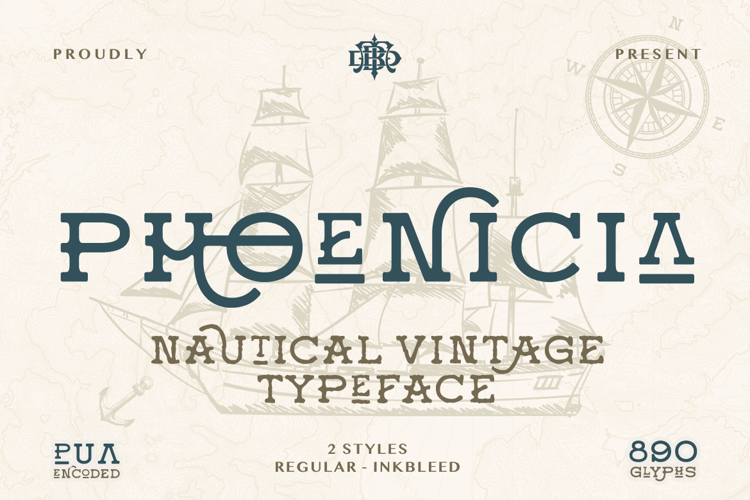
Phoenicia Font
Phoenicia is a nautical vintage typeface inspired by classic maritime lettering and old sailor typography. It brings a timeless sea-faring feel with bold shapes, strong serifs, and subtle vintage character.